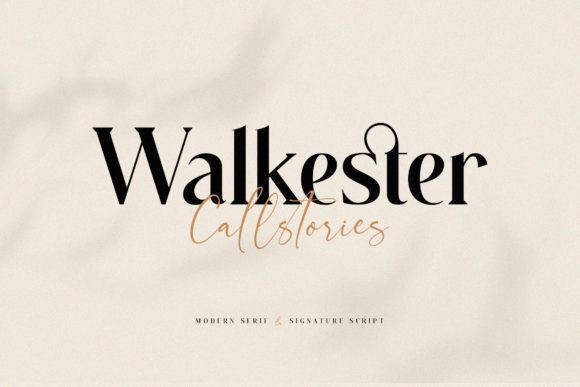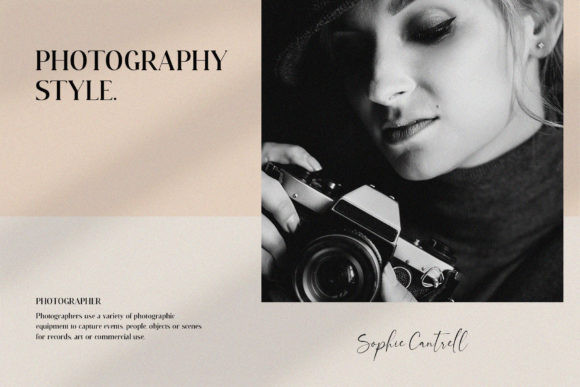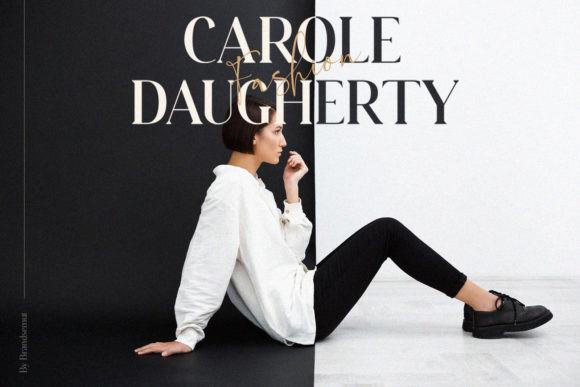
Walkester Callstories Font
Walkester Callstories is a spectacular duo font (serif and script). Incredibly versatile, this font fits a wide pool of designs, elevating them to the highest levels. This font is PUA encoded which means you can access all of the glyphs and swashes with ease! It features a varying baseline, smooth lines, gorgeous glyphs and stunning alternates. Add this font to your favorite creative ideas and notice how it makes them come alive!